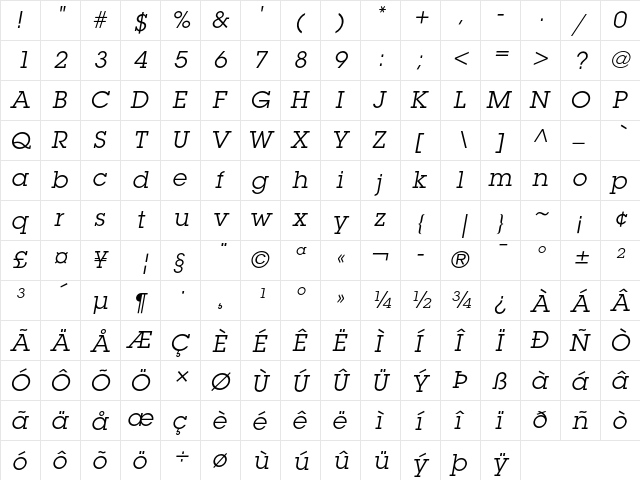
ITC Lubalin Graph Book Oblique
Design Context for ITC Lubalin Graph Typeface
ITC Lubalin Graph is a composed and adaptable typeface that performs quietly and consistently across a wide range of design contexts. Its italic angle brings a sense of urgency and motion to the letterforms.
Pro Tip: Use ITC Lubalin Graph for emphasis, pull quotes, and subheadings where its slanted energy can add rhythm to the layout.